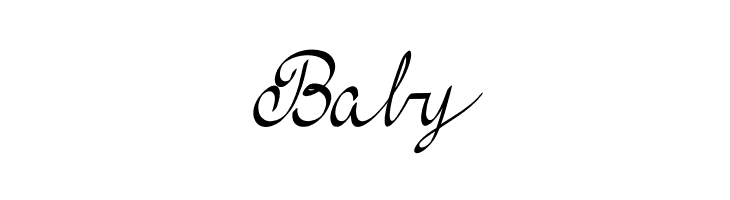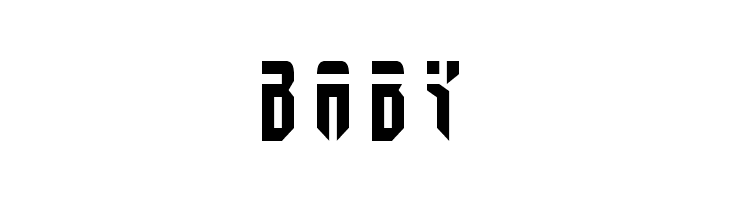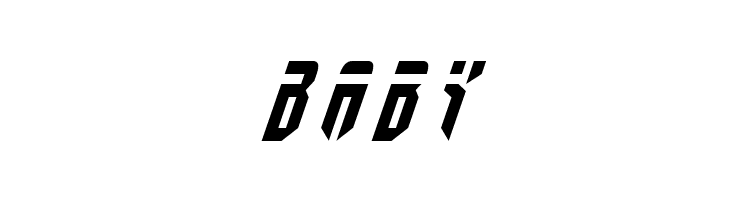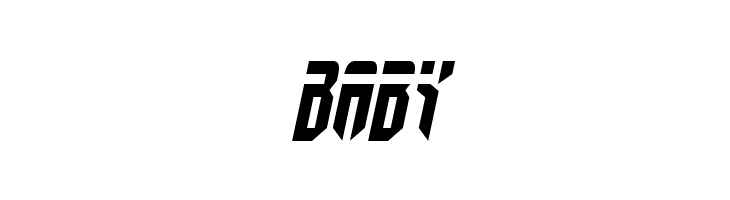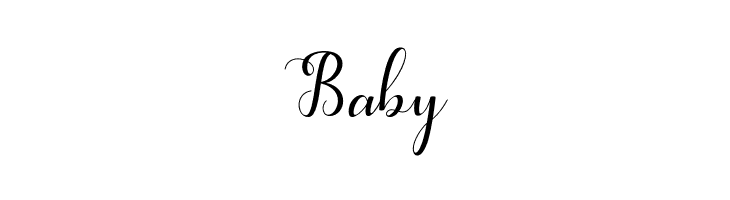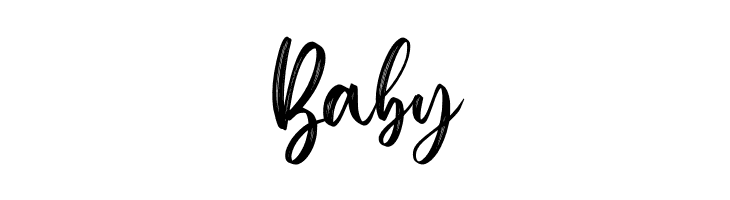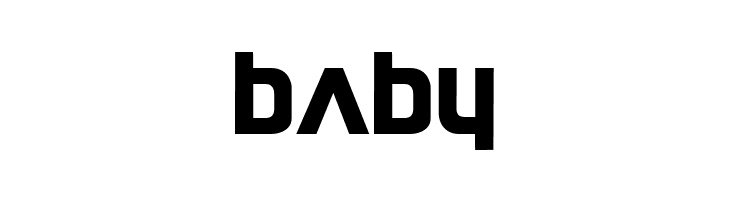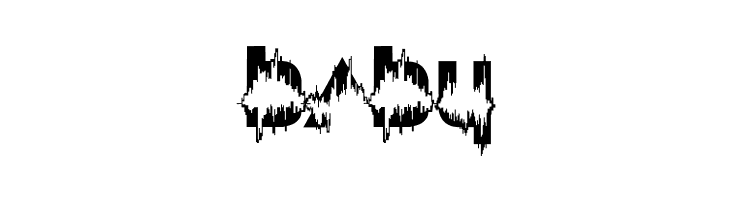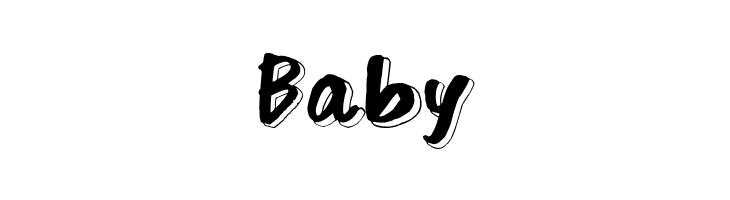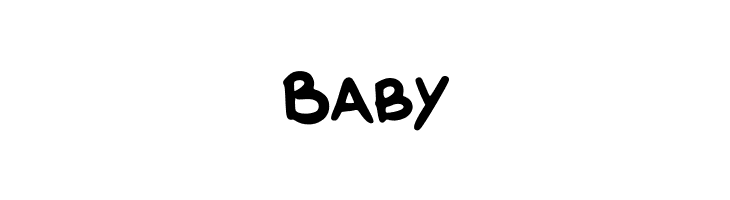
An edgy, distressed font with jagged edges and chaotic strokes.
A playful, bold handwritten font with brush-like texture and dynamic strokes.
A flowing, cursive script font with elegant, interconnected characters.
A flowing, cursive script font with elegant, connected strokes.
A bold, zigzag-patterned font with a dynamic and energetic style.
A bold, italicized font with a unique zigzag pattern, exuding energy and movement.
A lively, expressive handwritten font with bold, brush-like strokes.
A bold, dynamic font with playful curves and sharp angles, perfect for creative projects.
A bold, dynamic font with artistic flair and varying stroke widths.
A lively, expressive handwritten font with fluid strokes and a natural flow.
An elegant script font with flowing, cursive strokes and a sophisticated style.
A raw, expressive font with hand-drawn, brush-like strokes.
A dynamic handwritten font with fluid, expressive strokes and playful curves.
A bold, playful handwritten font with rounded, consistent strokes.
A modern, rounded sans-serif font with a friendly and approachable style.
A lively and elegant script font with fluid, connected letterforms.
A bold, cursive font with a playful and energetic style.
A playful, bold, and bubbly extruded font with a three-dimensional style.
An elegant script font with flowing, ornate letterforms and graceful swashes.
An elegant script font with flowing cursive style and intricate flourishes.
Bold, outlined font with a three-dimensional effect.
A playful, handwritten font with flowing, interconnected letterforms and a whimsical style.
A playful and elegant script font with flowing, cursive letterforms.
A playful, handwritten-style font with bold, rounded strokes.
A playful, casual handwritten font with smooth, flowing lines.
A modern, handwritten font with fluid, connected strokes and a personal touch.
An elegant script font with flowing, cursive letterforms and decorative flourishes.